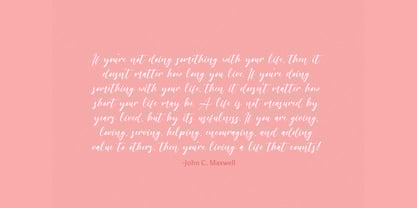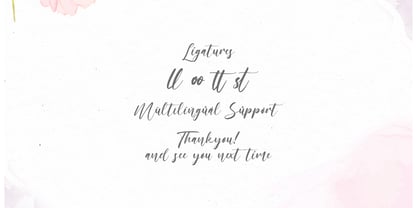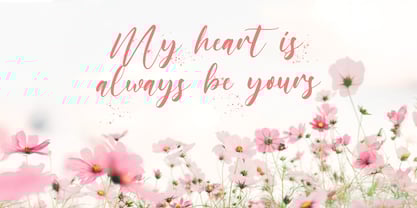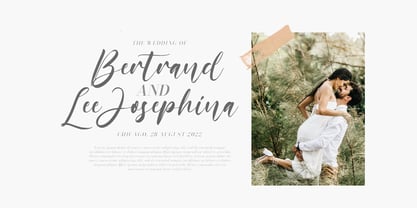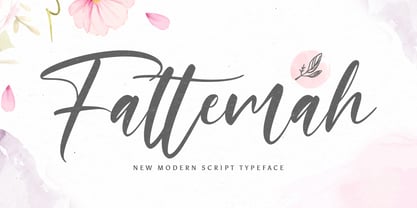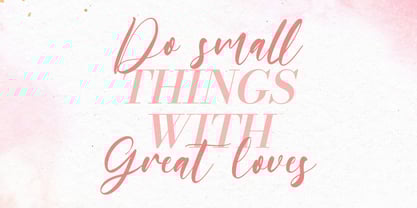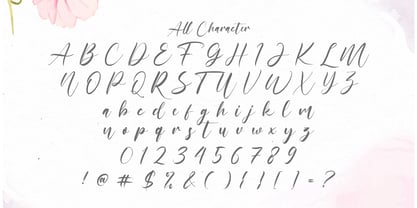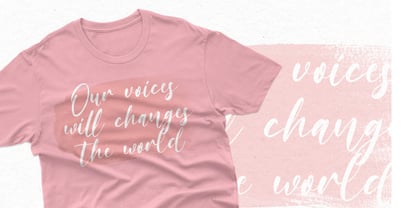
Die Schriftfamilie Fattemah wurde von Virgiawan Listanto entworfen und von Stringlabs Creative Studio veröffentlicht. Fattemah enthält 1 Stile.
Fattemah is a graceful handwritten font that combines soft curves with modern elegance. Its flowing strokes and natural rhythm give your designs a warm, authentic feel perfect for adding a personal and stylish touch to any creative project.
Designer: Virgiawan Listanto
Herausgeber: Stringlabs Creative Studio
Foundry: Stringlabs Creative Studio
Fattemah